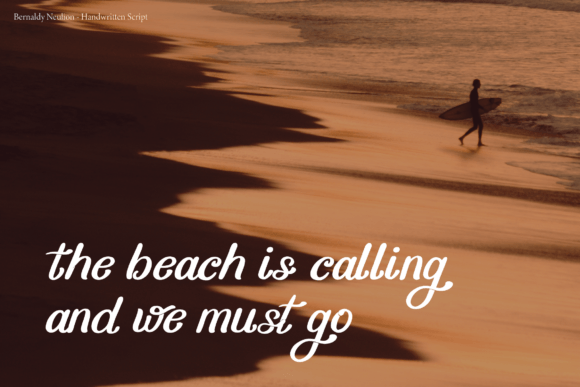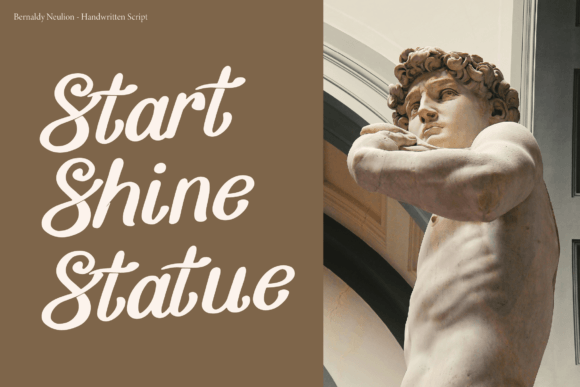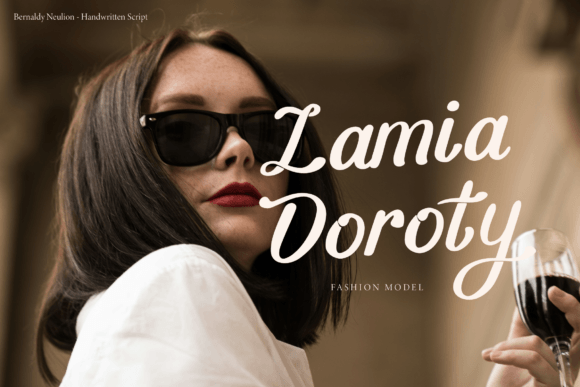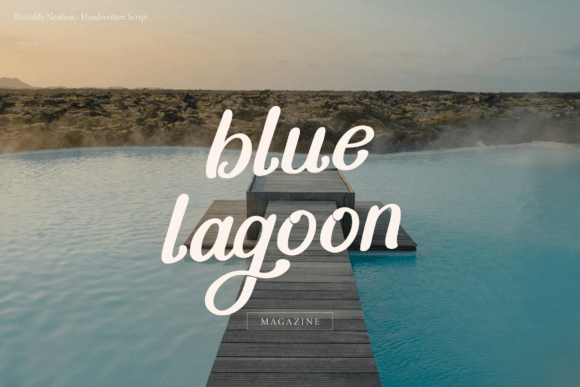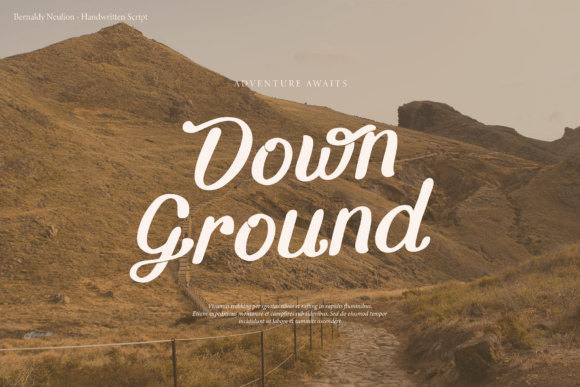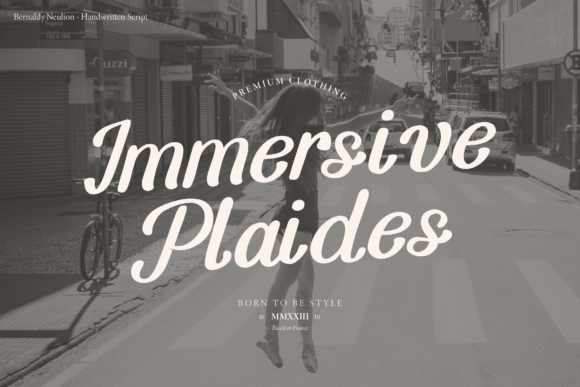
Bernady Neulion Font: Elevate Your Designs with Elegant Handwritten Style
In the world of typography, few fonts manage to capture the essence of personal touch and elegance as beautifully as the Bernady Neulion font. This stylish, handwritten script font has been gaining popularity among designers and crafters for its smooth, flowing lines and modern appeal. If you’re looking to add a warm and sophisticated feel to your invitations, logos, social media posts, or any design project, Bernady Neulion is an excellent choice.
The Charm of Bernady Neulion
Bernady Neulion stands out for its unique ability to mimic real handwriting. The font features soft curves and a fluidity that makes it instantly recognizable. Unlike more traditional or formal fonts, Bernady Neulion brings a level of warmth and personality to any text it’s used for. This makes it particularly well-suited for projects where you want to convey a sense of intimacy or personal connection with your audience.
Key Features of Bernady Neulion Font
- Handwritten Style: Bernady Neulion boasts a genuine handwritten look, complete with subtle variations in line width and soft, rounded edges.
- Smooth and Flowing Lines: The font’s design emphasizes smooth transitions and flowing lines, contributing to its elegant appearance.
- Modern and Readable: Despite its classic handwritten feel, Bernady Neulion is surprisingly modern and highly legible, making it versatile for various applications.
- Elegant and Warm: It adds a touch of sophistication and warmth to any design, making it perfect for projects that require a personal or luxurious feel.
Uses of Bernady Neulion Font
The versatility of Bernady Neulion font makes it suitable for a wide range of design projects. Here are some popular applications:
- Invitations and Wedding Stationery: Add a personal and elegant touch to your wedding invitations, save-the-date cards, and other stationery.
- Branding and Logos: Use Bernady Neulion to create a unique and memorable brand identity that stands out for its warmth and personality.
- Social Media Graphics: Elevate your social media presence with stylish graphics that reflect your personal or brand’s aesthetic.
- Packaging Design: For crafters and small business owners, Bernady Neulion can add a professional yet personal touch to product labels and packaging.
Tips for Using Bernady Neulion Effectively
To make the most of Bernady Neulion font, consider the following tips:
- Pair with Complementary Fonts: For maximum impact, pair Bernady Neulion with simpler, sans-serif fonts for contrast and readability.
- Adjust Line Spacing: Ensure your text is easy to read by adjusting the line spacing according to your design’s needs.
- Play with Colors: Bernady Neulion works well with a variety of colors. Experiment with different hues to find the perfect match for your design.
Bernady Neulion font is a beautiful addition to any designer’s toolkit. Its elegant, handwritten style brings a level of sophistication and warmth that’s hard to achieve with standard fonts. Whether you’re working on a branding project, creating social media content, or designing personal invitations, Bernady Neulion offers the perfect blend of style, readability, and personality. By incorporating this stylish font into your designs, you’ll be able to create visually appealing and emotionally engaging content that resonates with your audience.